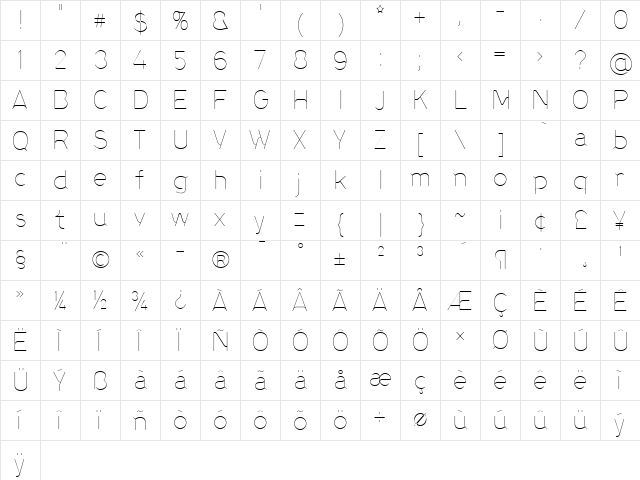
Enabler Thin Font Preview
Enabler Thin
Enabler Thin Font Details
| Style | Thin |
| Foundry | David James |
Design Context for Enabler Typeface
Enabler takes a measured approach to typography — its balanced proportions and neutral character make it a reliable workhorse for both digital and print work. The delicate stroke weight brings airiness and refinement to layouts.